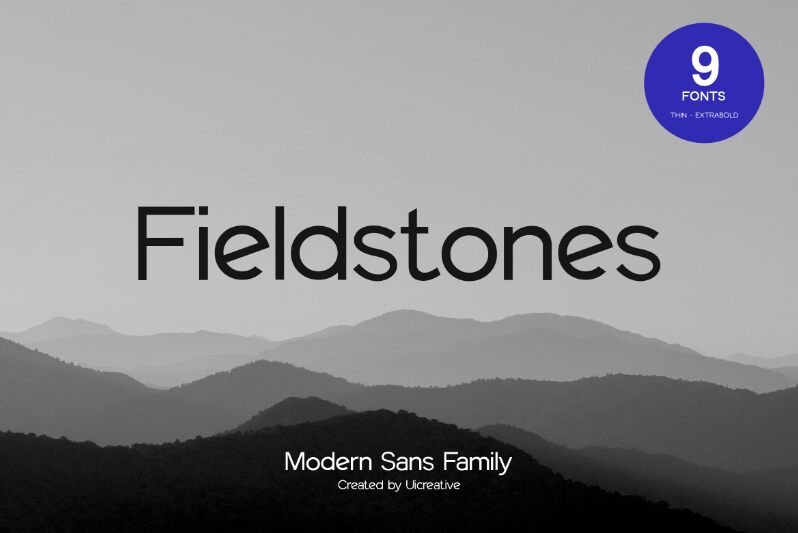
Fieldstones Regular
Fieldstones font by Ui Creative is an example of a stunning work of art that is truly a class apart. It brings modern and geometric elements together within the sans serif classification. Built from clean lines, the typeface has been created to impress audiences with its contemporary aesthetic. Use big or use small; its versatile beauty guarantees that it will render class for any project and medium.
Magazines, posters, business cards, and logos are some anyways in which the free sans serif font can find utility. Website design mockups can certainly also be given a fine touch when you put this typeface to task in them. Do not shy from even creating traditional book pages or invitation cards with it as you would not be disappointed there either!